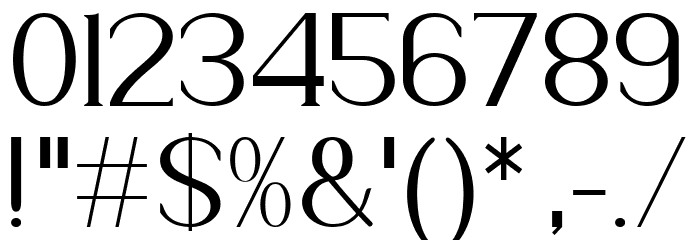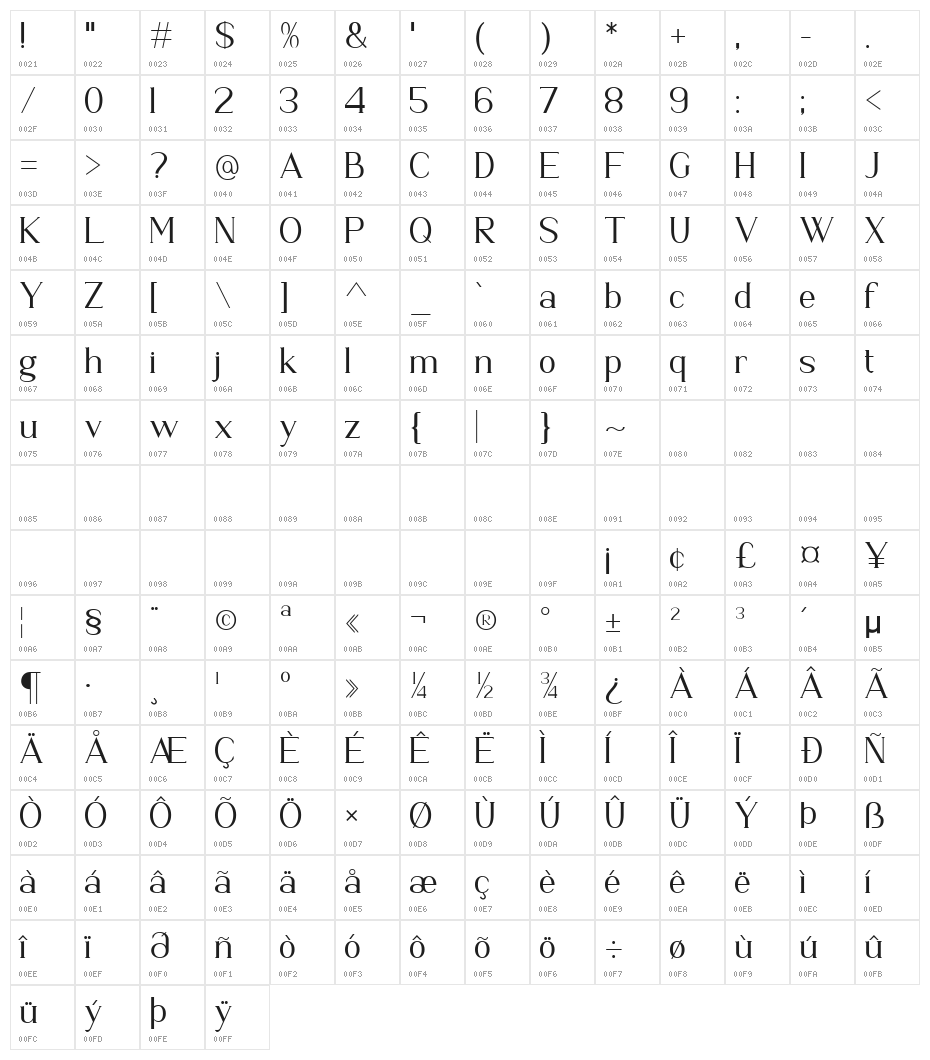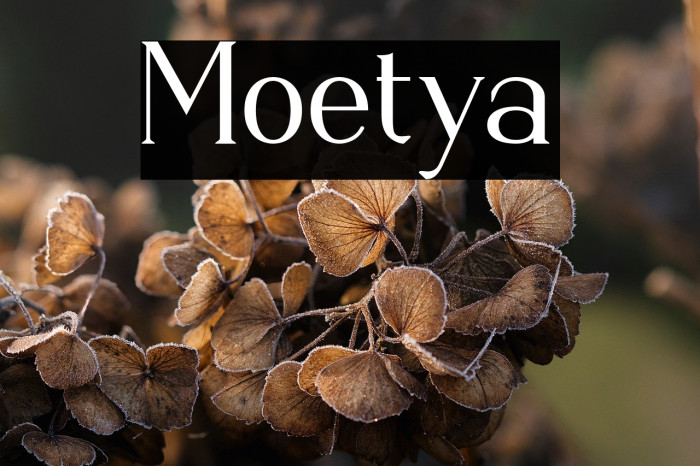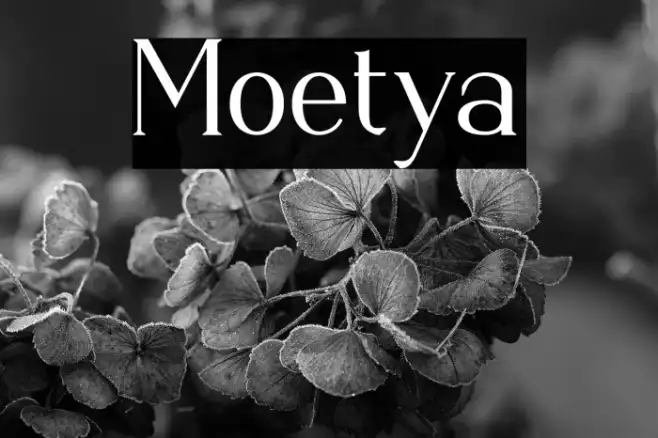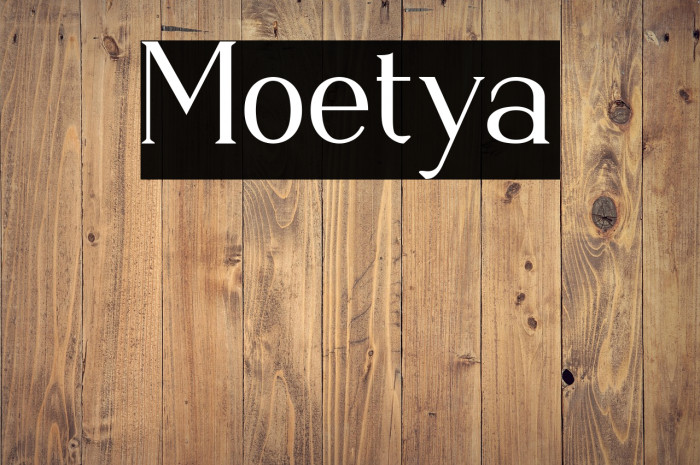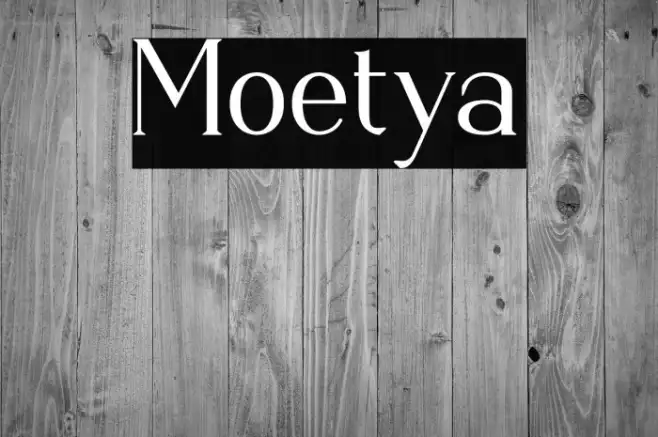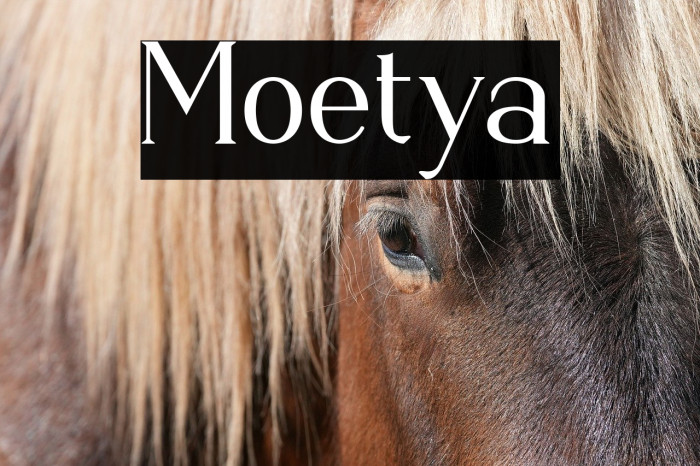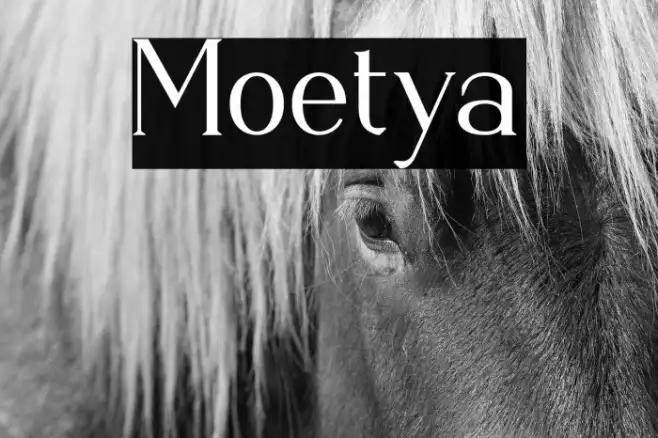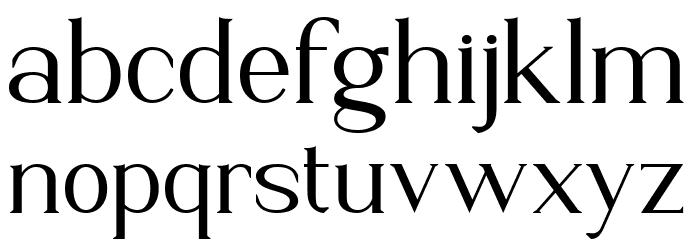
Moetya Font
Moetya Description
This font features a modern serif style with elegant and refined letterforms. The uppercase characters are tall and slightly condensed, giving a sophisticated and formal appearance. The lowercase letters maintain a consistent style, with smooth curves and balanced proportions. The numerals are clear and distinct, matching the overall aesthetic of the font. Special characters are well-integrated, ensuring versatility in various design contexts. The font's clean lines and subtle contrast make it suitable for both digital and print media, offering a timeless appeal.
| Proposed Projects | Ideal for editorial design, branding projects, luxury packaging, and formal invitations. |